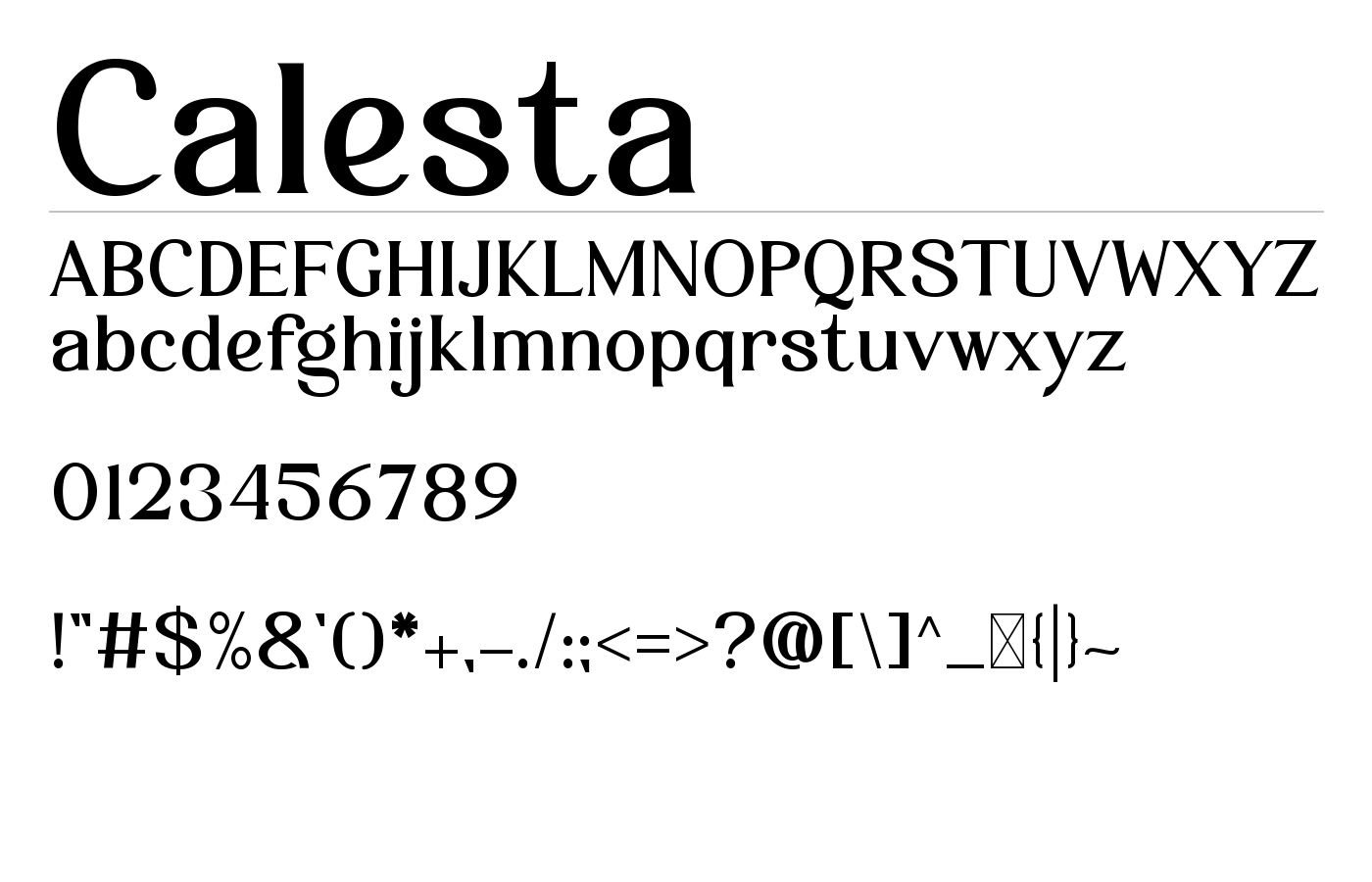
Calesta is a serif font with a modern and elegant feel, featuring a medium weight and normal width that offers clear readability. Its distinctive high contrast between thick and thin strokes, bracketed serifs, and refined letterforms give it a sophisticated and timeless appeal, making it perfect for editorial design, branding, and luxury-themed projects. This font works well in headlines and display uses where a classy and polished impression is needed.
Calesta Font
About Calesta Font
| Font family | Calesta Font |
| Designer | Mulie Art |